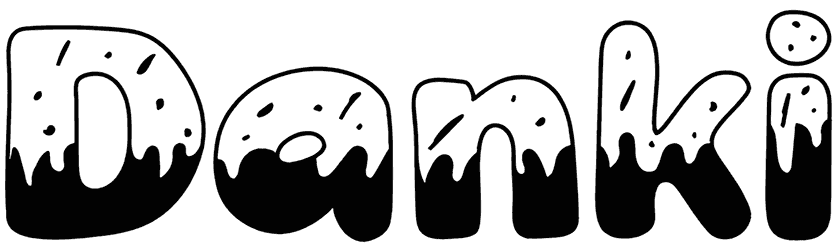
Danki Font
This donut font, with its clever design and cheerful mood, is perfect for grabbing people’s attention in a wide range of lighthearted contexts, such as birthday invitations, cartoons, and poster designs.
Danki is great for use in logotypes because of its two unique forms, but it does not have punctuation or numerical symbols. Give it a shot, and see if it improves the way your next creative piece communicates your deepest feelings.